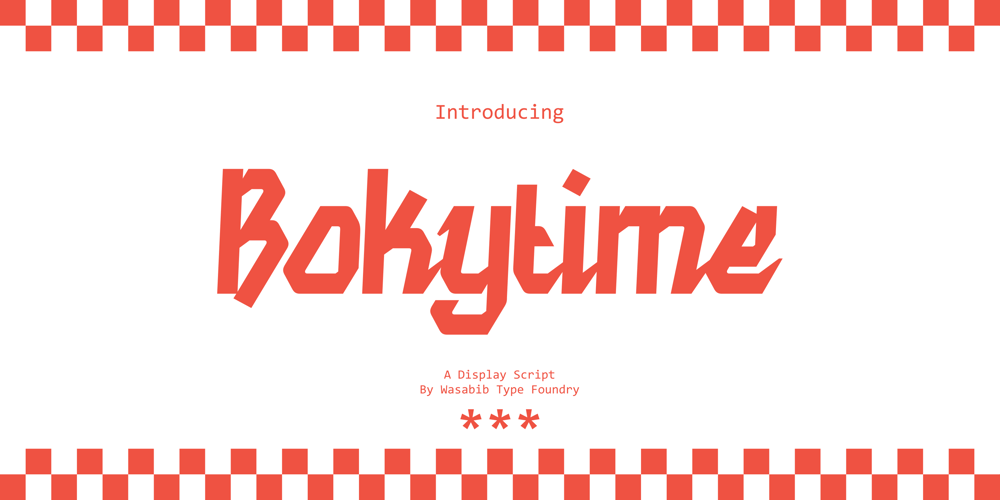
WTF Bokytime Font Family was designed by Miftahul Habib and published by Wasabib Type Foundry. WTF Bokytime contains 1 styles and family package options. Bokytime is a display script font is a typeface that exudes elegance and sophistication with its flowing, timeless, minimalistic yet impactful sweeping letterforms. It captures attention and adds a touch of artistic flair to any design project. The ornate and decorative nature of display script fonts makes them ideal for creating a memorable impact in logos, headlines, invitations, and other creative applications.Bokytime is also bold and commanding, with thick, substantial letterforms. It conveys a strong presence and demands attention. Thick fonts are commonly used in headlines, posters, and other design projects where the goal is to make a bold statement. The weightiness of the strokes adds a sense of strength and solidity to the typography, creating visual impact and enhancing readability.